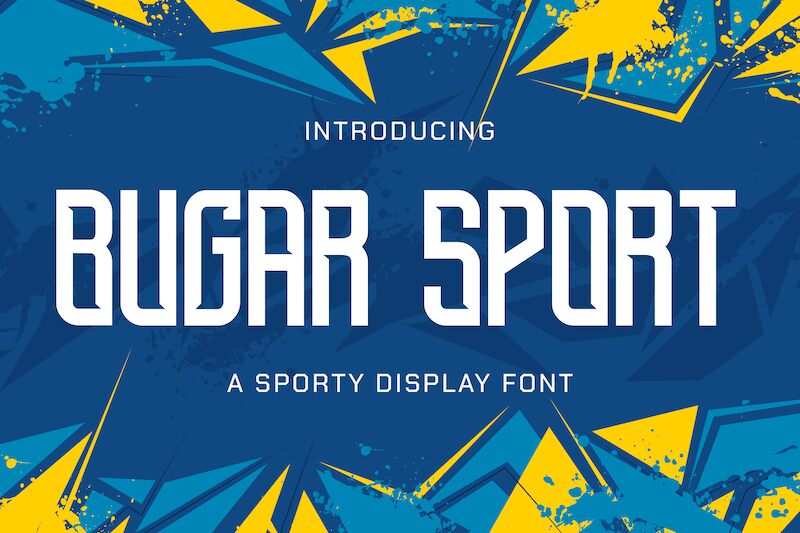
Bugar Sport
Bugar Sport font designed by StringLabs Creative Studio is a sporty, futuristic, geometric font with exceptional readability. Each letter in this display typeface is angular with a wide spacing and some symmetrical elements immediately visible to the naked eye. The free font has that distinct techno look you’d find on tech devices or in fiction movies about digital post-apocalyptic worlds.
The versatile typeface is ideally used for editorial designing projects like headlines and titles where their presence would be immediately impactful. Other wonderful applications include logo design, branding, packaging designs, advertising, posters, flyers, banners even digital interfaces amongst others.